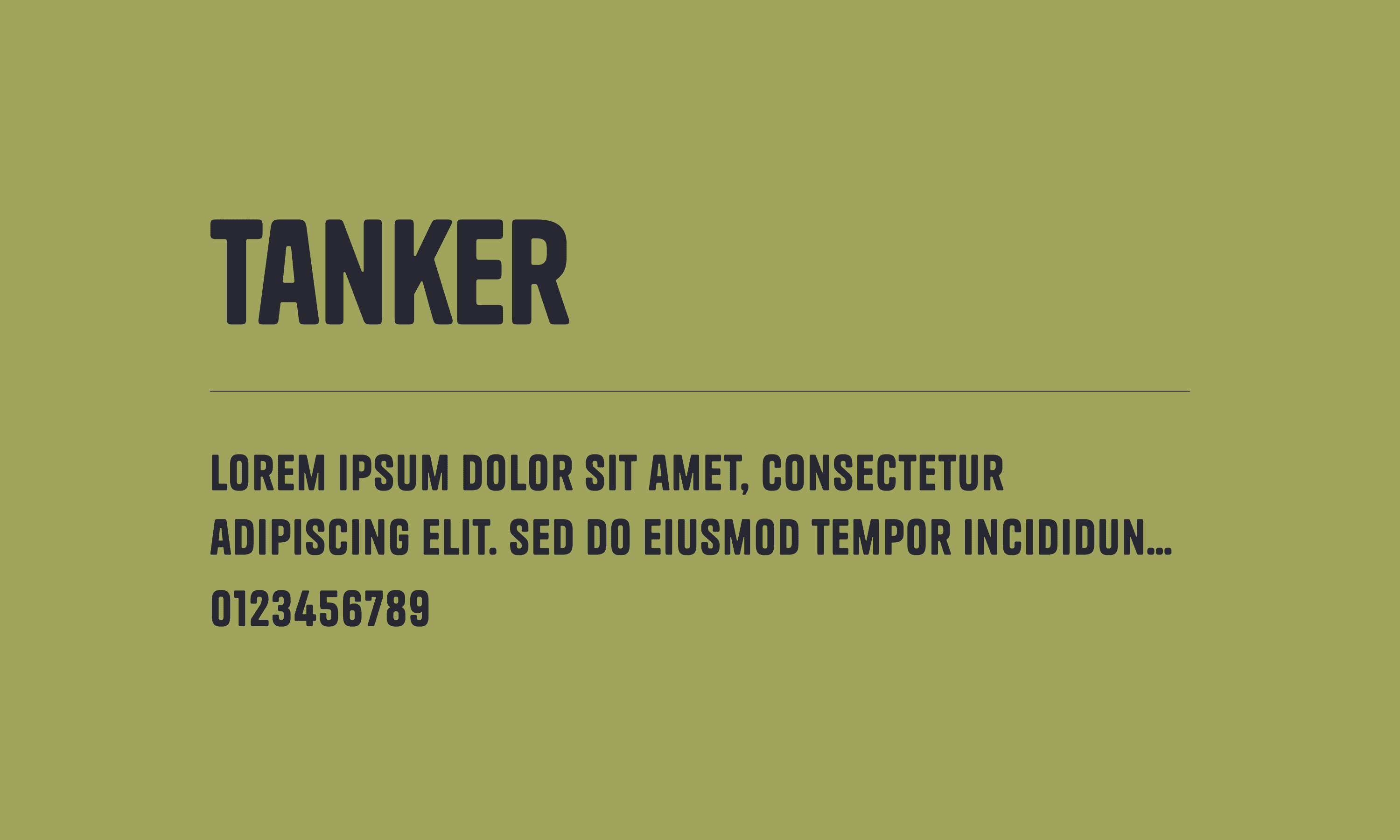
Tanker
Tanker is a sans-serif font full of industrial feel, characterized by its rugged, heavy lines and solid geometric shapes. This typeface typically conveys a sense of modernity and strength, making it suitable for designs that require emphasis on power and stability, while the rounded corners also reflect a sense of approachability.